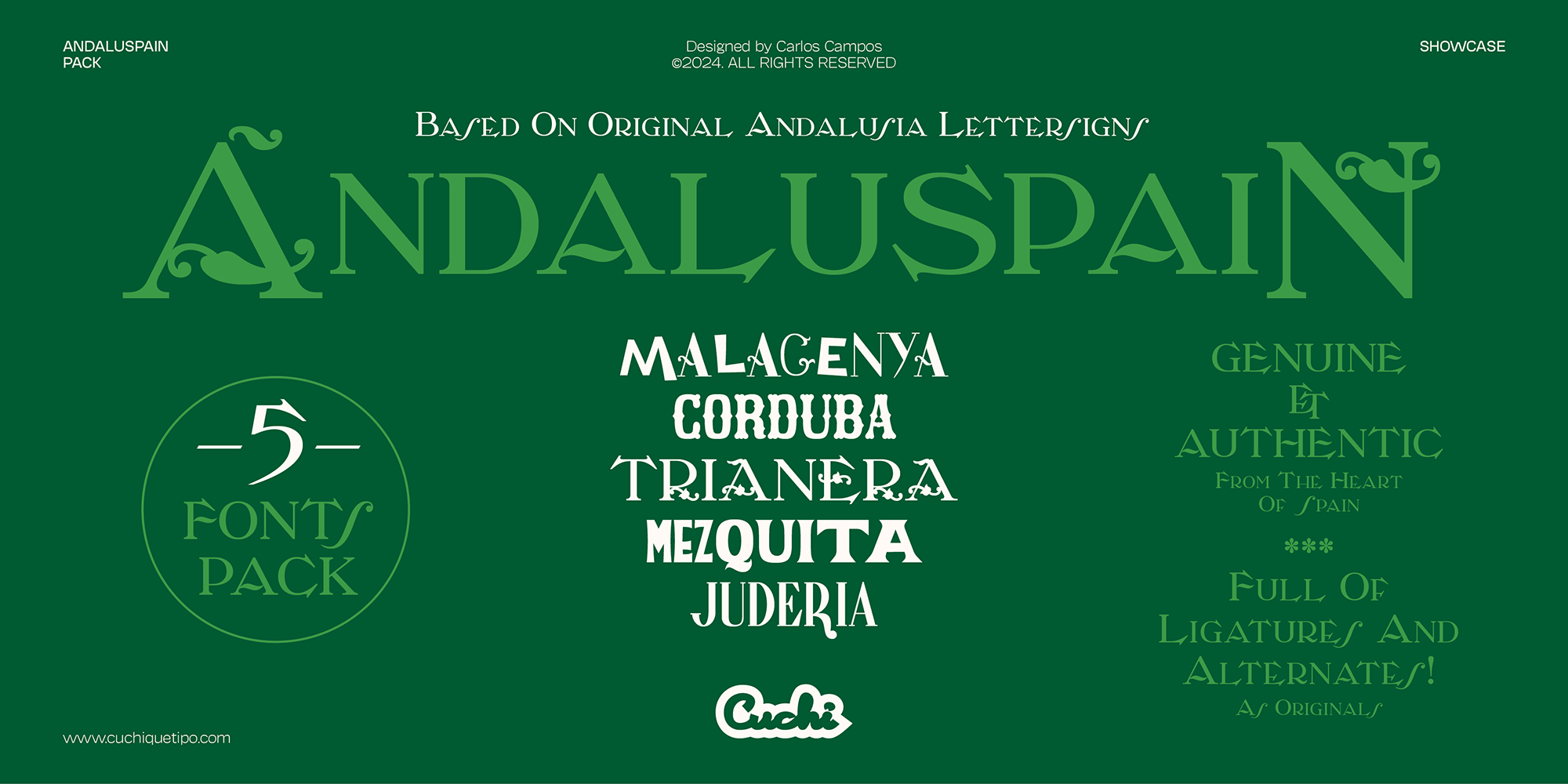
Andaluspain Font excels in authentic Spanish restaurant branding, flamenco performance posters, Mediterranean travel brochures, traditional tapas bar signage, Spanish cultural festival materials, Andalusian heritage exhibitions, passionate guitar concert graphics, and vibrant Spanish tourism campaigns. Its passionate character makes it perfect for projects celebrating Spanish culture and Andalusian traditions.
What makes Andaluspain Font exciting is its captivating ability to embody the passionate soul of Andalusia through rhythmically flowing letterforms that dance with flamenco intensity and Spanish cultural fire. The spirited construction features dramatic curves with passionate flair that captures the essence of Spanish romance and Andalusian artistry. This typeface embodies Spanish passion and cultural authenticity, making every design feel vibrantly alive and authentically connected to the heart of Spain.
Andaluspain Font family includes Regular, Bold, Light, Italic, Flamenco, and Passion variations, offering designers comprehensive tools for creating compelling Spanish-inspired typographic compositions that celebrate Andalusian heritage and cultural vibrancy.
Ignite passionate designs with the Spanish fire of Andaluspain Font Free Download. This vibrant typeface brings Andalusian soul to any creative project, whether you're developing brand identities for Spanish businesses, crafting promotional materials for cultural events, or designing graphics for Mediterranean tourism. The font's Andalusian-inspired architecture and passionate presence make it essential for projects requiring authentic Spanish appeal. Andaluspain Font perfectly captures the essence of Spanish culture while ensuring excellent readability across all cultural applications. Its spirited character forms and flamenco-inspired design language make it ideal for brands seeking to communicate Spanish passion and cultural authenticity, delivering memorable results that resonate with audiences who appreciate Spanish heritage, flamenco artistry, and the vibrant soul of Andalusia where passion meets tradition in beautiful harmony.